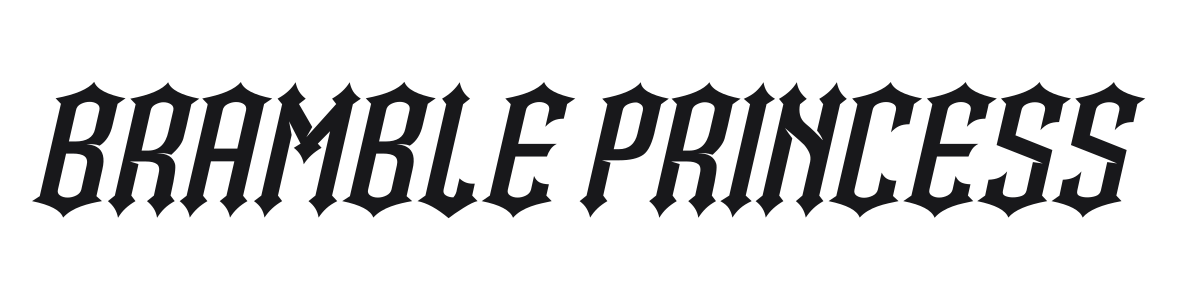
Bramble Princess
Bramble Princess is a bold condensed italic blackletter loaded with sharp, thorn-like terminals that push well beyond traditional gothic typography. The dramatic rightward slant and heavy stroke contrast give it an aggressive energy closer to heavy metal lettering than medieval manuscript. It works at large sizes where those spiky details can breathe.